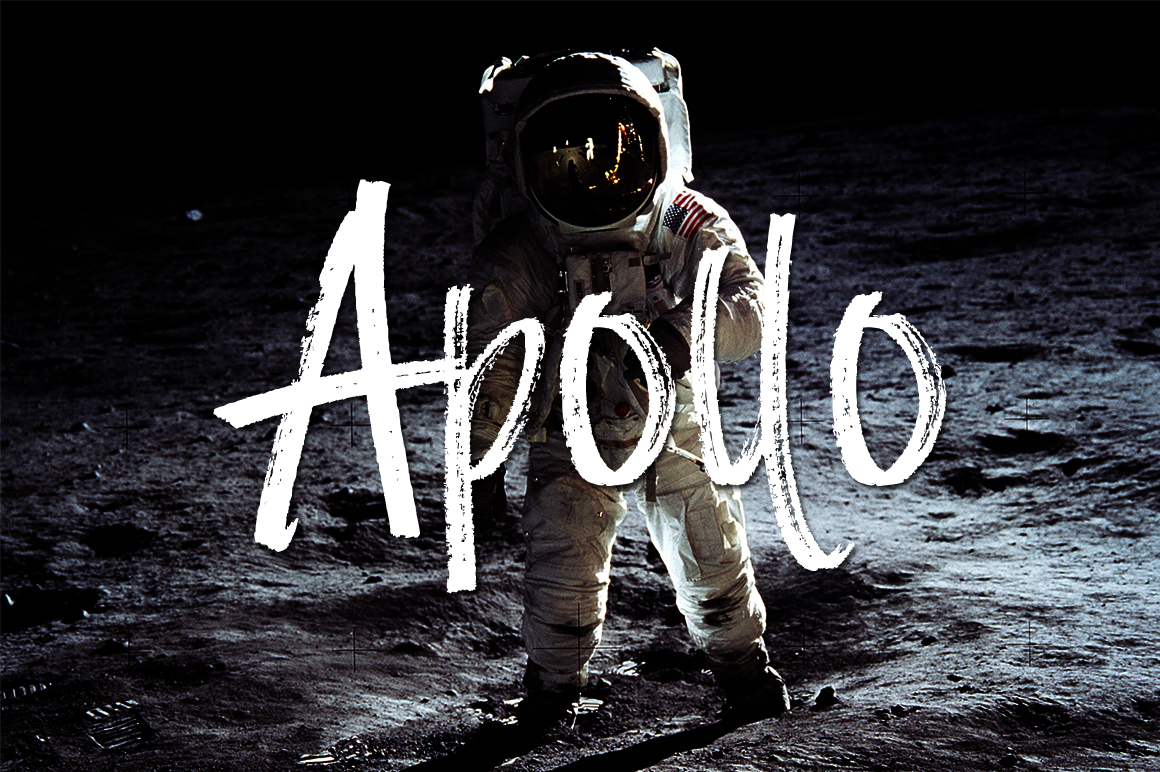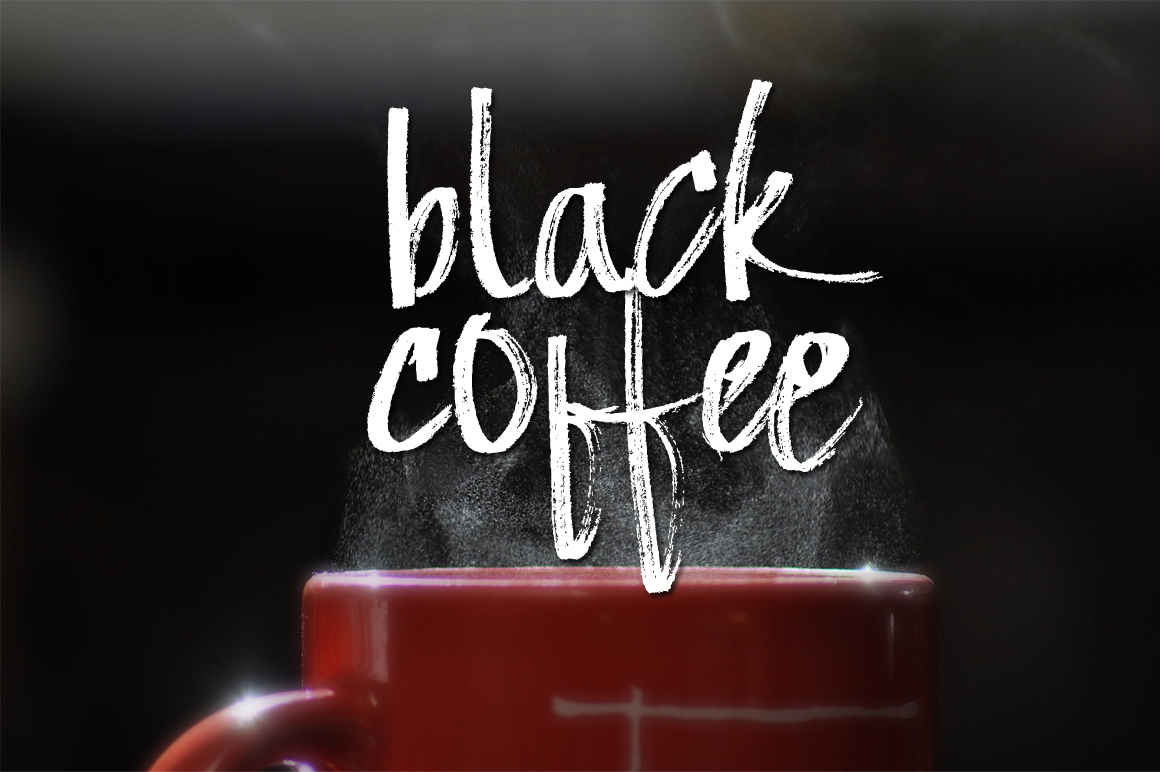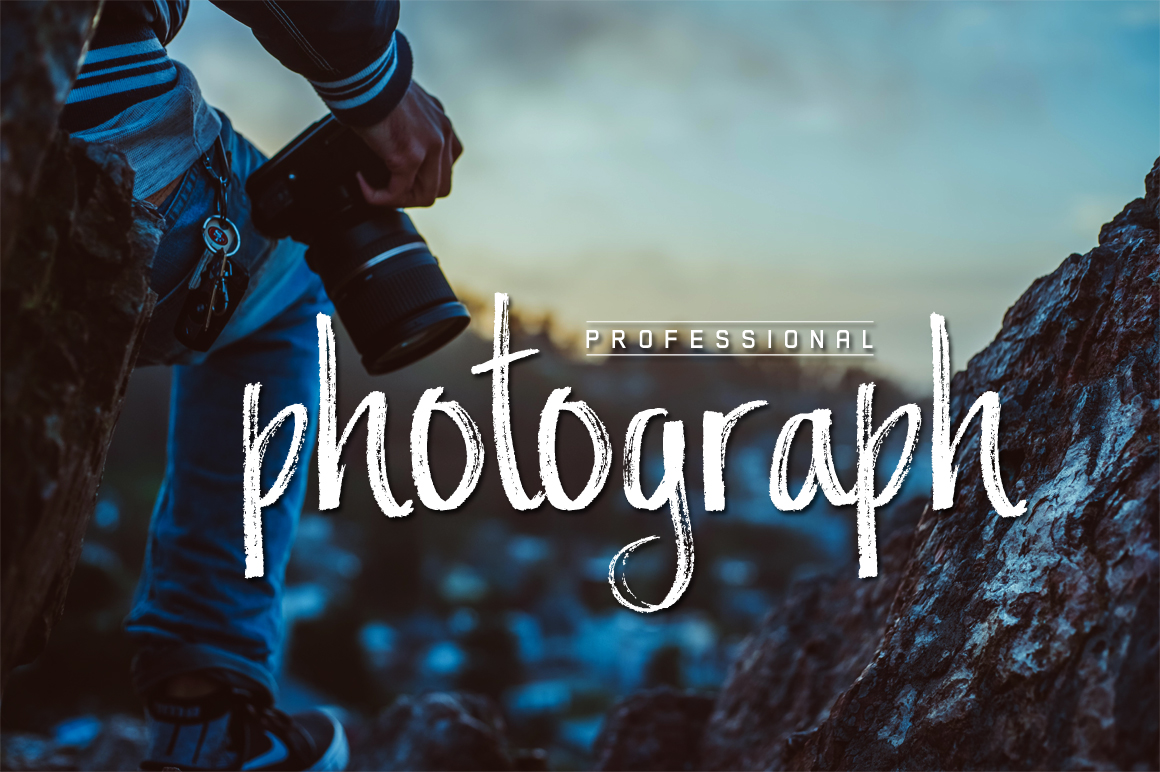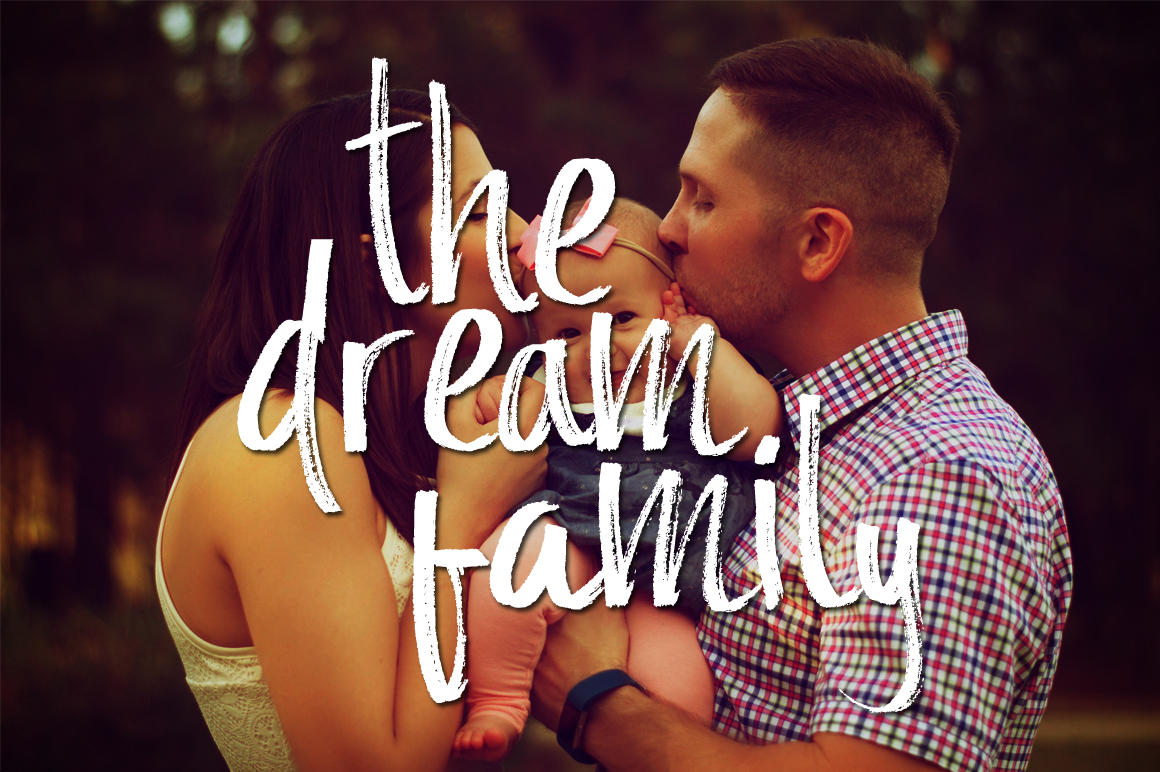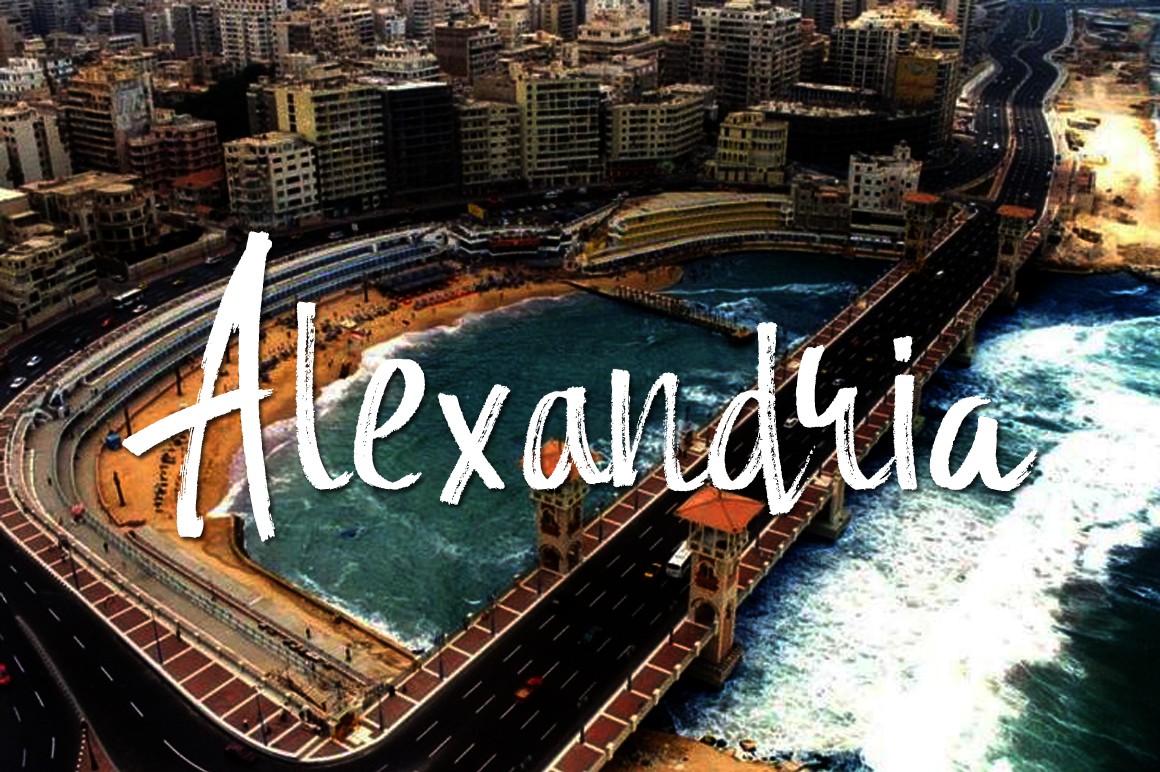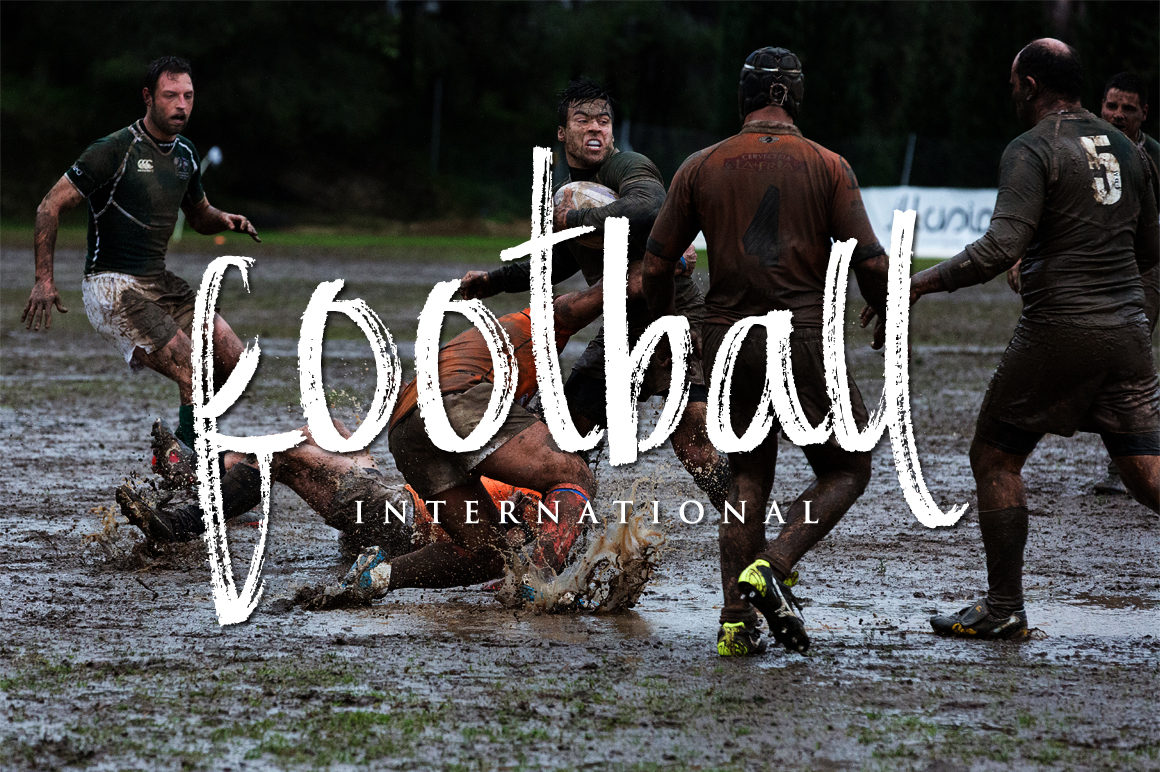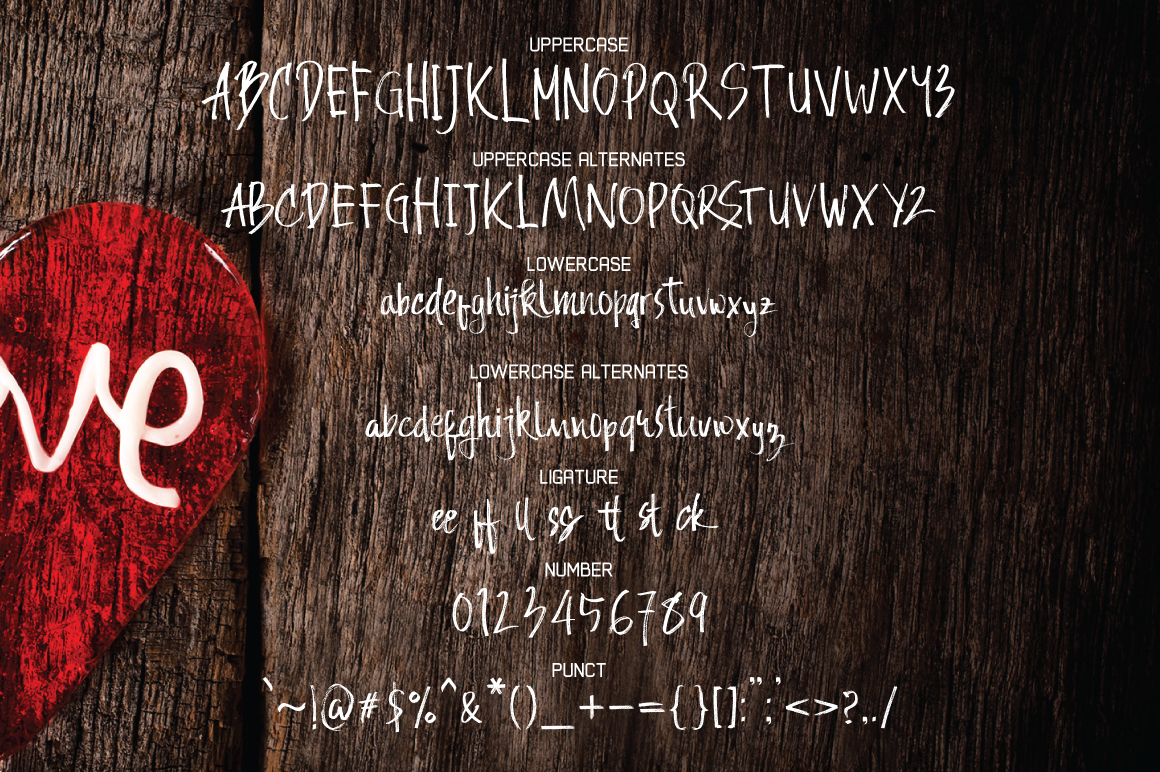
Andecha Font
About Andecha Font
Andecha is a hand brushed font. It’s ideal for t-shirts, magazines, phone covers, social media, restaurant menus, greeting cards, invitations, weddings, headers and much more.